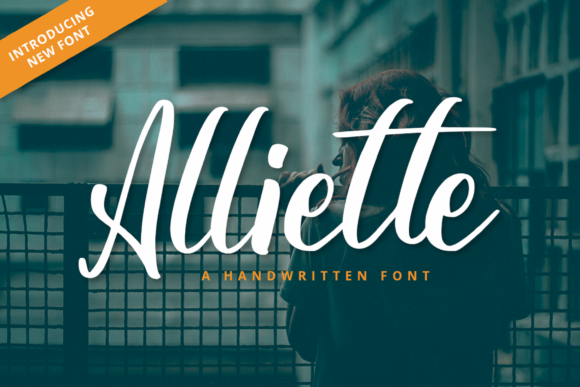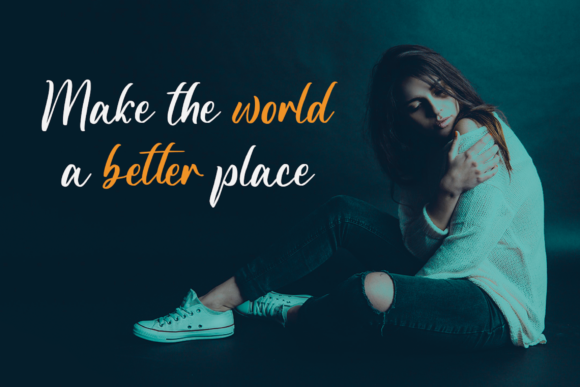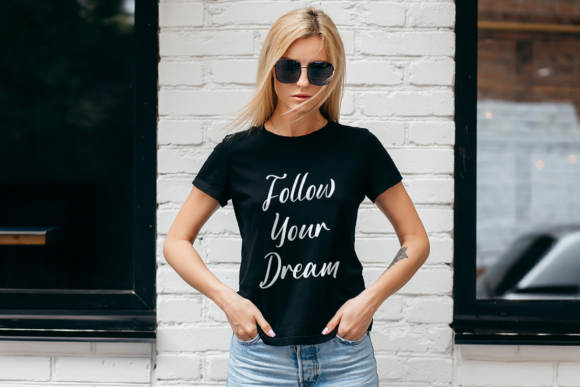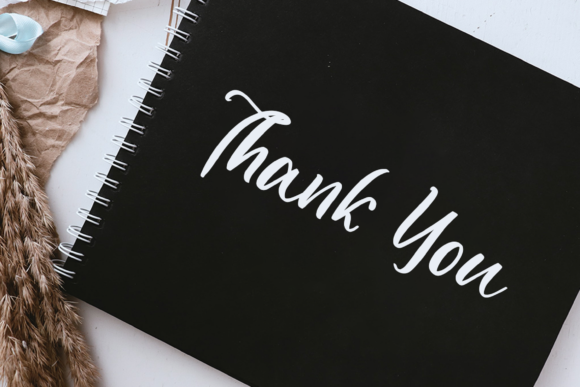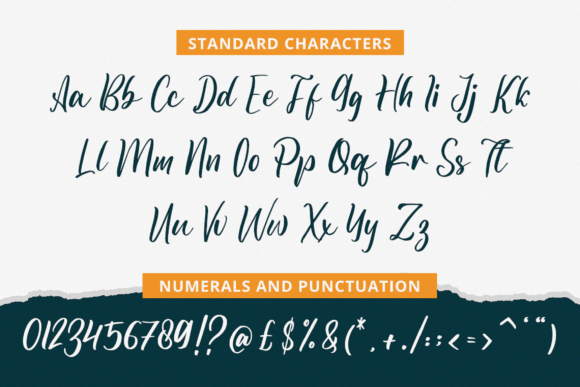
Alliette is a charming and elegant script font that exudes a delightful and graceful flow. Its unique and intricate letterforms add a touch of sophistication and personality to a wide range of design projects, making it an ideal choice for creating a personalized and captivating visual experience.
The font’s sweet flow lends a sense of fluidity and movement to your designs, creating a harmonious and visually pleasing effect. The carefully crafted curves and graceful strokes of Alliette contribute to its overall elegance, making it well-suited for conveying sentiments of beauty and romance.
Alliette’s versatility shines through its ability to enhance various design applications. Whether it’s adorning wedding invitations, expressing gratitude through thank you cards, or adding a touch of refinement to greeting cards, the font adapts seamlessly to different contexts, evoking a sense of warmth and charm.
The font’s intricate details and personalized style make it a wonderful choice for weddings and special occasions. Its graceful and flowing nature can mirror the emotions and sentiments associated with love and celebration, creating a captivating atmosphere that resonates with the intended audience.
Alliette’s beauty extends to its suitability for logos and branding materials. By incorporating this font into your logo design, you can infuse your brand identity with a touch of elegance and sophistication, setting the tone for your business and creating a lasting impression on customers.
The font’s handwritten appearance adds a sense of authenticity and human touch to your designs. This can be especially impactful in today’s digital age, where personalized and authentic elements are highly valued by audiences seeking genuine connections.
Alliette’s legibility and readability ensure that your message is communicated effectively, whether it’s on printed materials, digital platforms, or various marketing collateral. Its clean and clear letterforms allow your audience to engage with your content effortlessly.
Overall, Alliette’s lovely script design, characterized by its sweet flow and intricate details, makes it a versatile and enchanting font for a wide range of projects. From wedding invitations to logos, this font adds a touch of elegance and personalized style that captures the essence of special moments and resonates with audiences seeking genuine and heartfelt experiences.